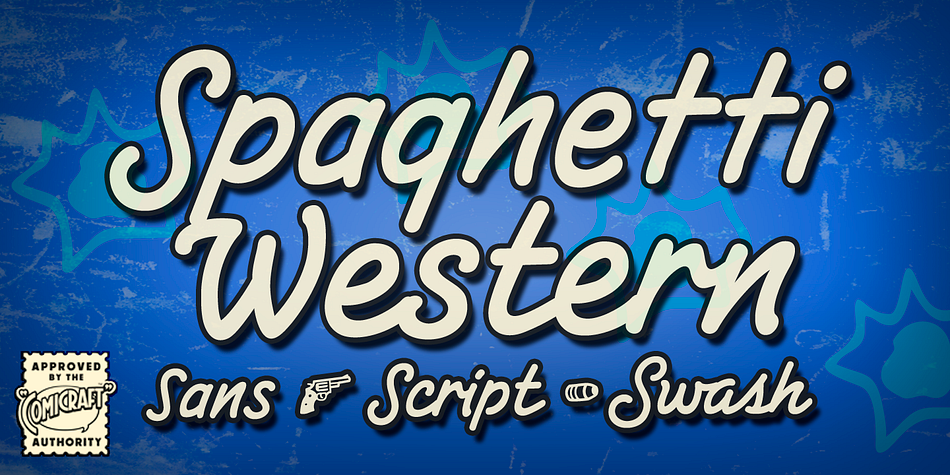
Spaghetti Western
Designed by John Roshell, Spaghetti Western is a hand drawn and script font family. This typeface has three styles and was published by Comicraft.
If you’re a man with no name and you like your Westerns a little more continental, we’ve got a Fistful of Fonts for you! Load up your guns with our dynamite new offering, SpaghettiWestern. Lip synch the Good, the Bad AND the Ugly scripts you’re presented with and we guarantee that Spaghetti Western will make Spanish lettering look a little bit more Mexican. Don’t try to understand ‘em, just rope and throw and grab ‘em!
Three fonts (Sans, Script & Swash) with upper and lowercase characters and Western European international characters.